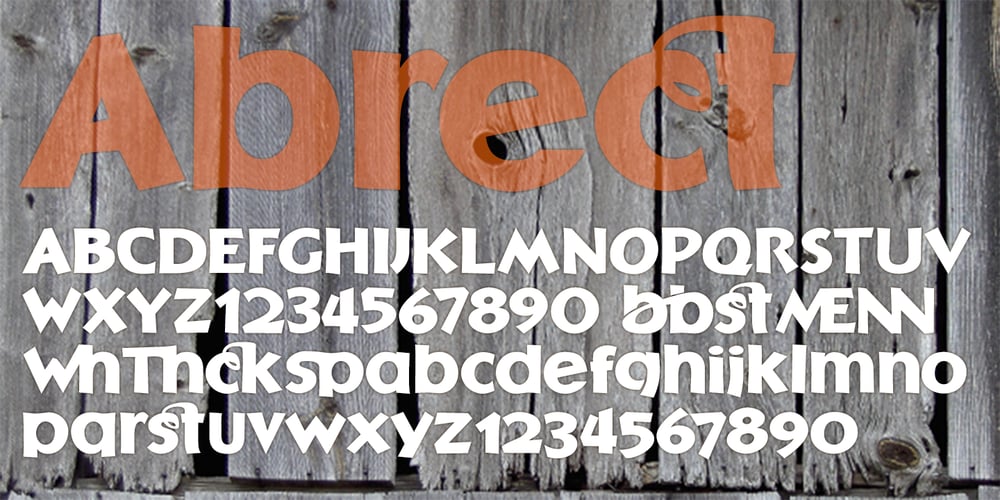
Abrect Font Family was designed by David Bergsland and published by Hackberry Font Foundry. Abrect contains 1 styles and family package options. My first font for the summer of 2009, Abrect is a new sans serif font where I try to maximize the x-height and keep the design fresh and personal. It fits in with my continuing objective of designing book fonts that I can really use. Abrect is a tangent for me just taking an idea out to its end. In particular, it is a radical modification of my first font in 1993, Nuevo Litho. The hand-drawn shapes vary a lot, many pushing the boundaries of the normal character. With many of the new releases I see, the digital perfection is getting pretty extreme. It’s looking like a Rococo stage of development for many with decoration taking over from function. I’m consciously trying to head a different direction. This is not a normal font for me in that it has caps, lowercase, with the appropriate figures for each case, no small caps. This is the first time I have skipped small caps in over a decade. This font has all the OpenType features in the display set for 2009 except for the small caps. There are several ligatures for your fun and enjoyment: bb gg ff fi fl ffi ffl ffy fj ft tt ty Wh Th and more and many of them are experimental in form. Enjoy!